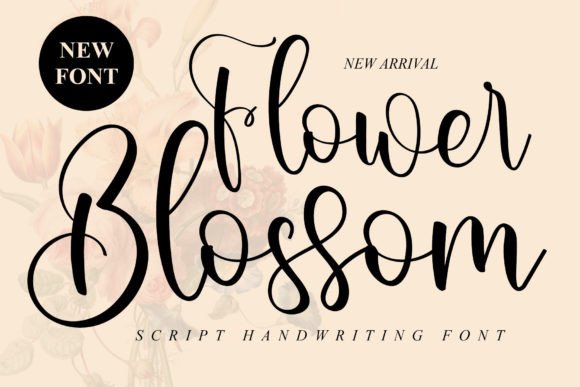
Step into a realm of elegance and creativity with the Flower Blossom Font, a script font that will transform your designs into works of art. This charming font is meticulously crafted to exude a touch of sophistication and grace, capturing the essence of handwritten beauty.
Immerse yourself in a world of infinite possibilities as you explore the diverse applications of the Flower Blossom Font. Whether you're creating captivating logos, crafting memorable branding projects, designing delicate labels, or adding a touch of elegance to your photography, this font will elevate your projects to new heights of visual appeal.
With its PUA encoding, the Flower Blossom Font grants you effortless access to a treasure trove of glyphs and swashes, empowering you to unleash your creativity and add intricate details to your designs. Let your imagination soar as you craft stunning watermarks, design enchanting invitations for special events, and bring life to all your creative endeavors that yearn for a touch of script calligraphy.
Indulge in the artistry of the Flower Blossom Font and witness the transformation of your designs. Its delicate strokes and graceful curves will captivate your audience, leaving a lasting impression of elegance and refinement. Embrace the beauty of this font and embark on a journey of creative exploration, where your imagination knows no bounds.